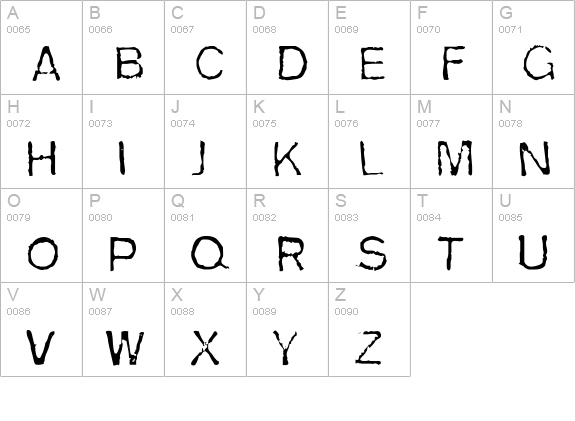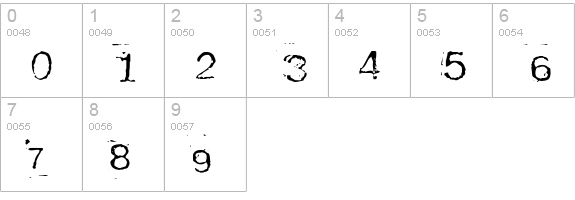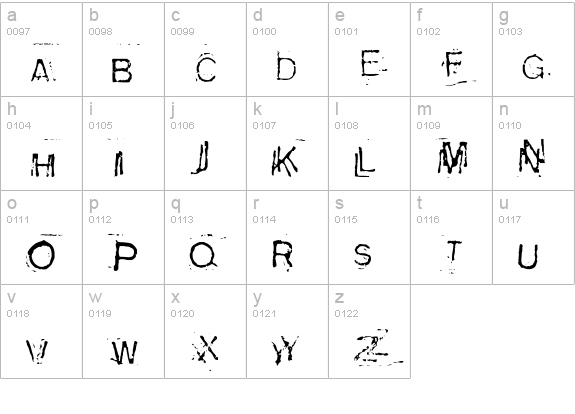
InsClouseau Font Details
Introducing InsClouseau, a whimsical and playful font that is sure to bring a touch of charm to your creative projects. This delightful typeface is perfect for those looking to add a dash of quirkiness to their designs, whether it be for logos, branding, invitations, or anything in between. With its unique and captivating letterforms, InsClouseau exudes a sense of fun and lightheartedness. Each character is carefully crafted to maintain a balance between legibility and artistic flair, making it a versatile choice for a wide range of applications. One of the best features of InsClouseau is that it is available for free! Yes, you read that right. This fantastic font can be freely downloaded at FontsMarket.com, allowing you to enjoy its creative possibilities without any additional cost. It's a true gem for designers and enthusiasts alike, providing an opportunity to explore its delightful curves and playful details without breaking the bank. So, why wait? Dive into the world of InsClouseau and let your imagination run wild. Whether you're looking to add a touch of whimsy to your next project or simply want to have some fun with your typography, this font is sure to be a delightful addition to your creative toolkit. Don't miss out on the opportunity to download InsClouseau for free at FontsMarket.com and unleash your creativity today!